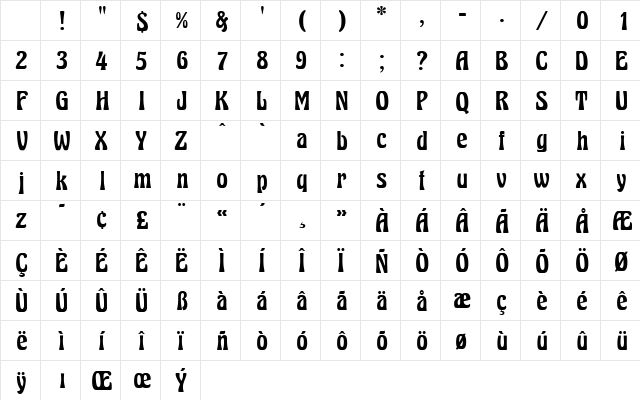
Complete Excalibur Nouveau Med Regular glyph index. Displaying only characters natively supported by Excalibur Nouveau Med Regular font.
Excalibur Nouveau Med is a composed and adaptable typeface that performs quietly and consistently across a wide range of design contexts.